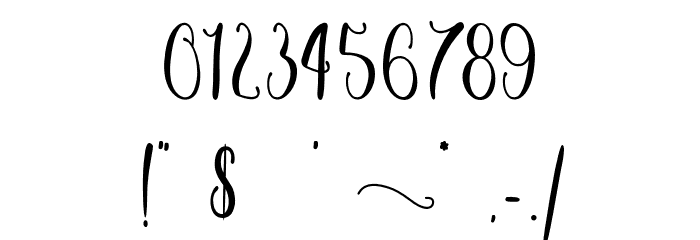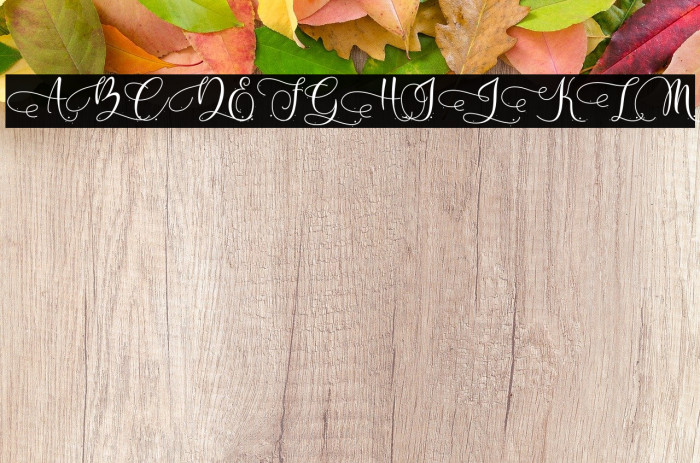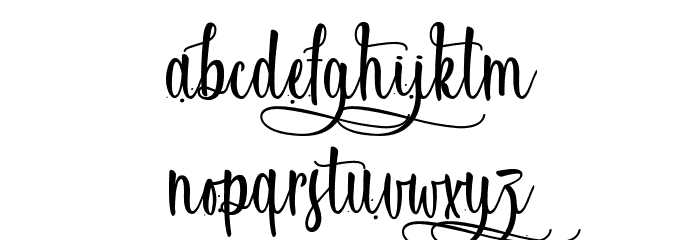
Xanthousy - Personal Use Font
This font features an elegant and decorative script style, characterized by its intricate swirls and flourishes. The uppercase letters are particularly ornate, with extended loops and curls that give a sense of sophistication and artistry. The lowercase letters maintain a more fluid and connected appearance, enhancing readability while still retaining a stylish flair. Numbers and special characters are designed to complement the overall aesthetic, with consistent embellishments that unify the font's look. This font is ideal for projects that require a touch of elegance and creativity.
| Use Case | Logos, Invitations, Decorative text |
| Proposed Projects | Wedding invitations, greeting cards, branding materials, and decorative signage. |